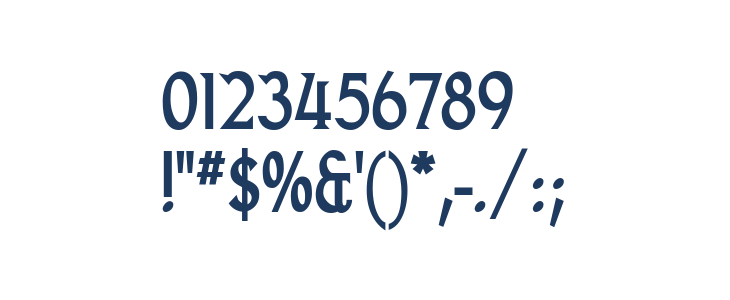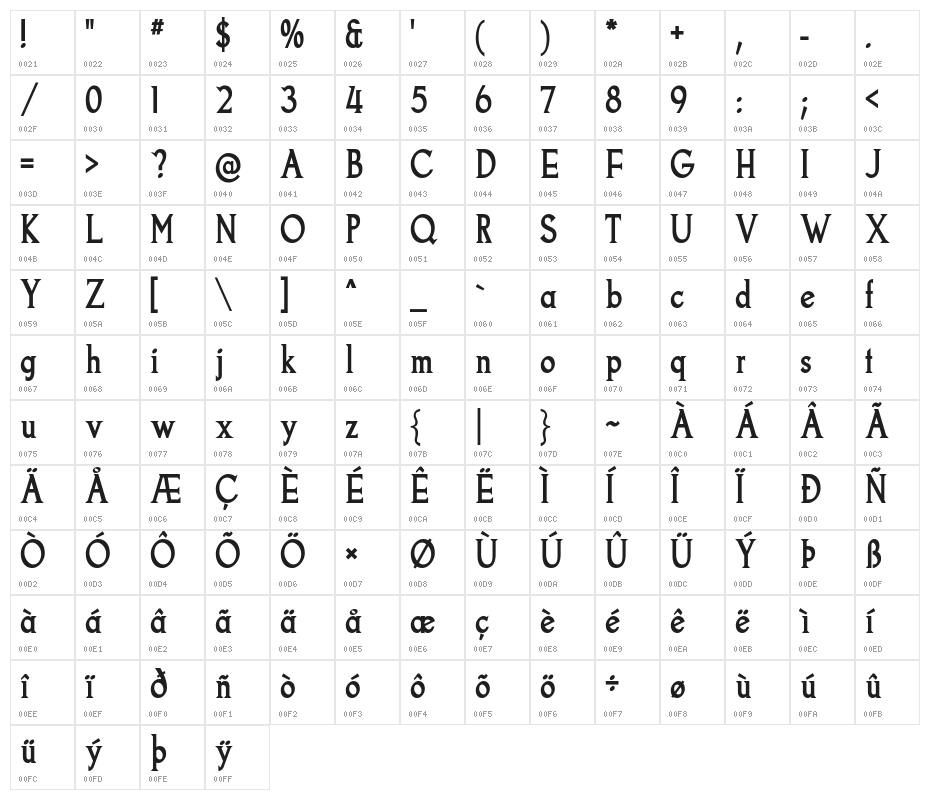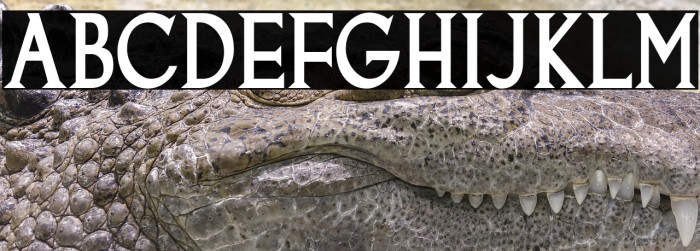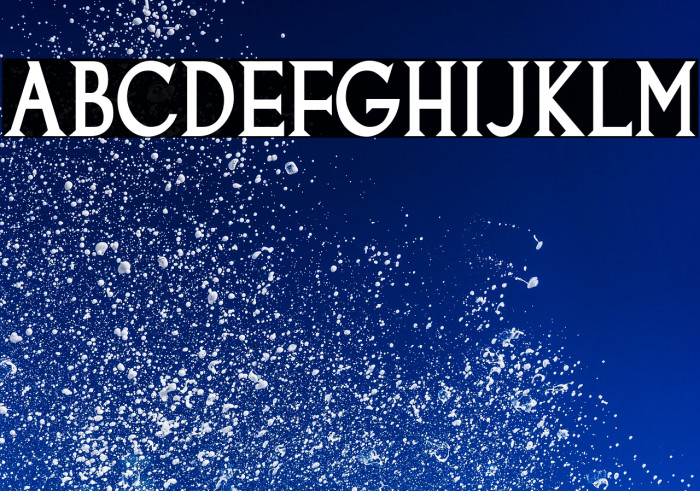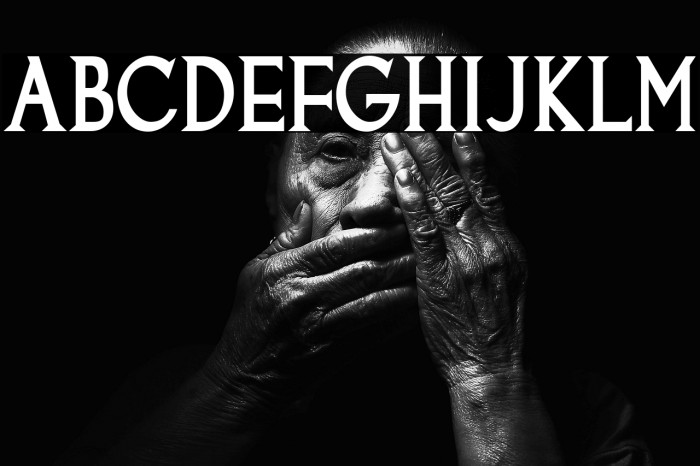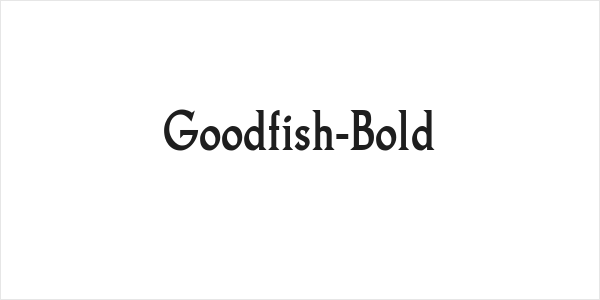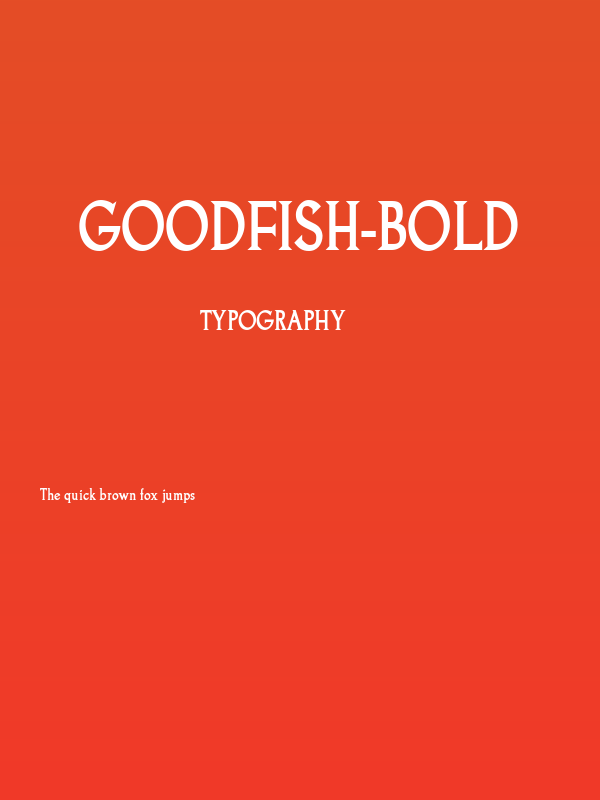
Goodfish-Bold Font
Goodfish-Bold Description
This font features a bold and commanding presence with its strong serif design. The characters are well-defined with a classic serif style that adds a touch of elegance and tradition. The uppercase letters are tall and imposing, while the lowercase letters maintain a consistent and harmonious flow. The numerals are clear and easy to read, making them suitable for various applications. Special characters are distinct and well-integrated into the overall design, ensuring versatility in usage. The font's bold weight and high contrast in stroke thickness make it ideal for attention-grabbing headlines and impactful designs.
| Proposed Projects | Ideal for book covers, editorial headlines, branding, and advertising materials. |